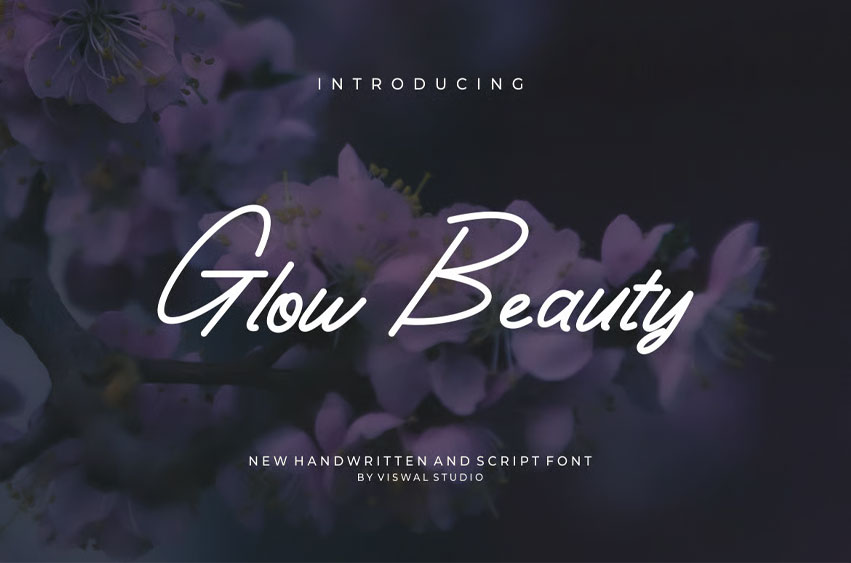
Glow Beauty Font
Glow Beauty Font Is A Handwritten Script Logo Font. Can Make It Easier To Convey The Message In Your Design. Font Is Suitable For Logo, Labels, Badge, Branding, Magazine, Poster, Title, Gigs, Covers And Etc.